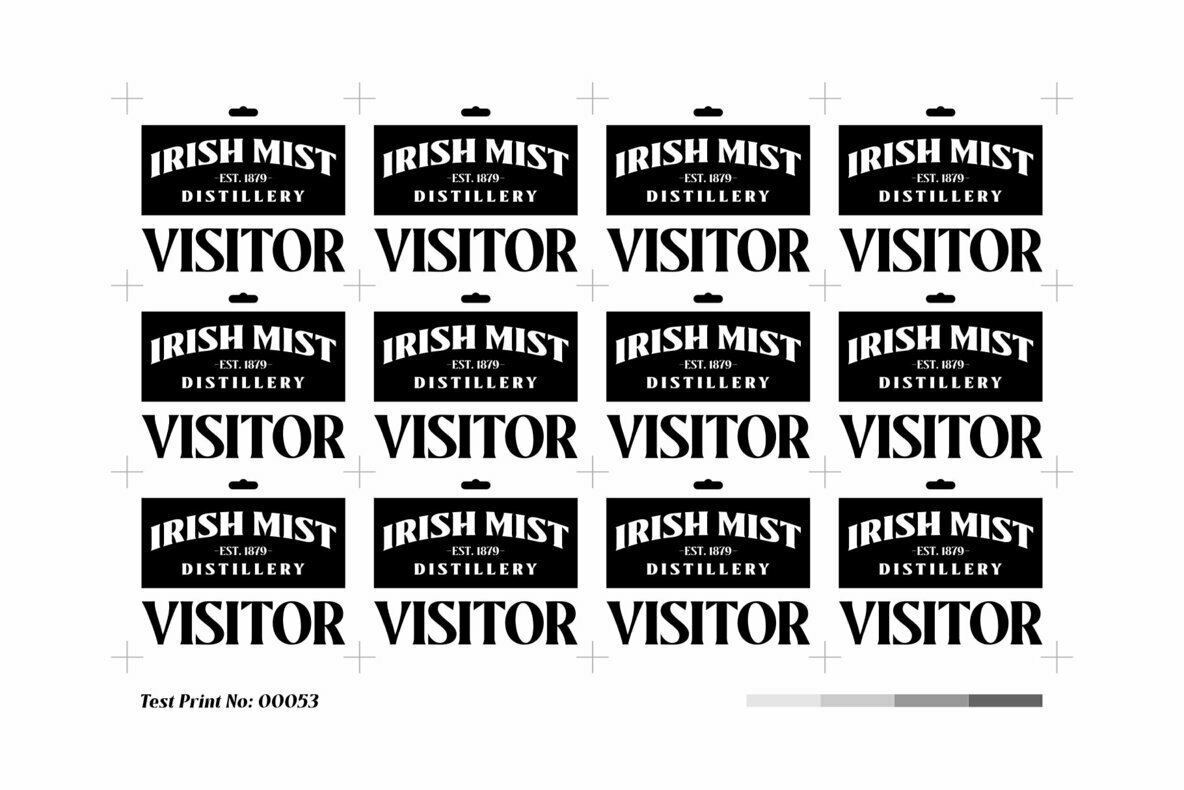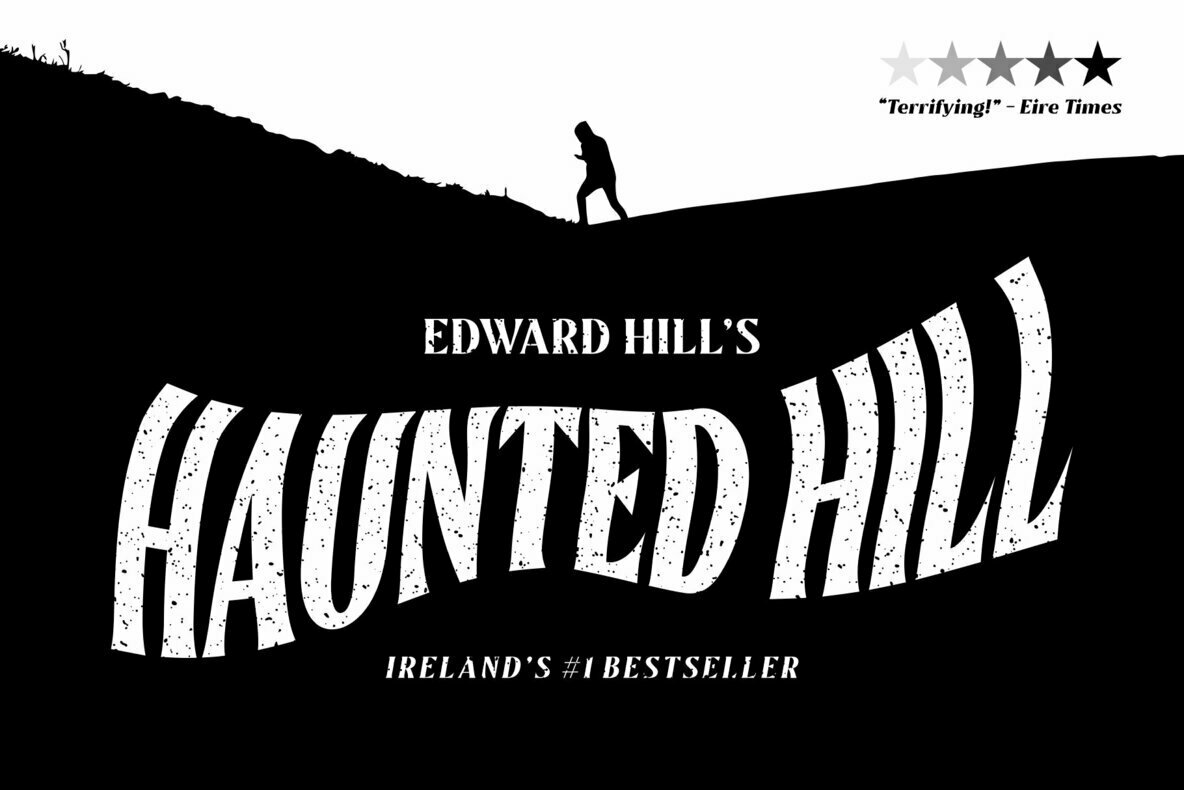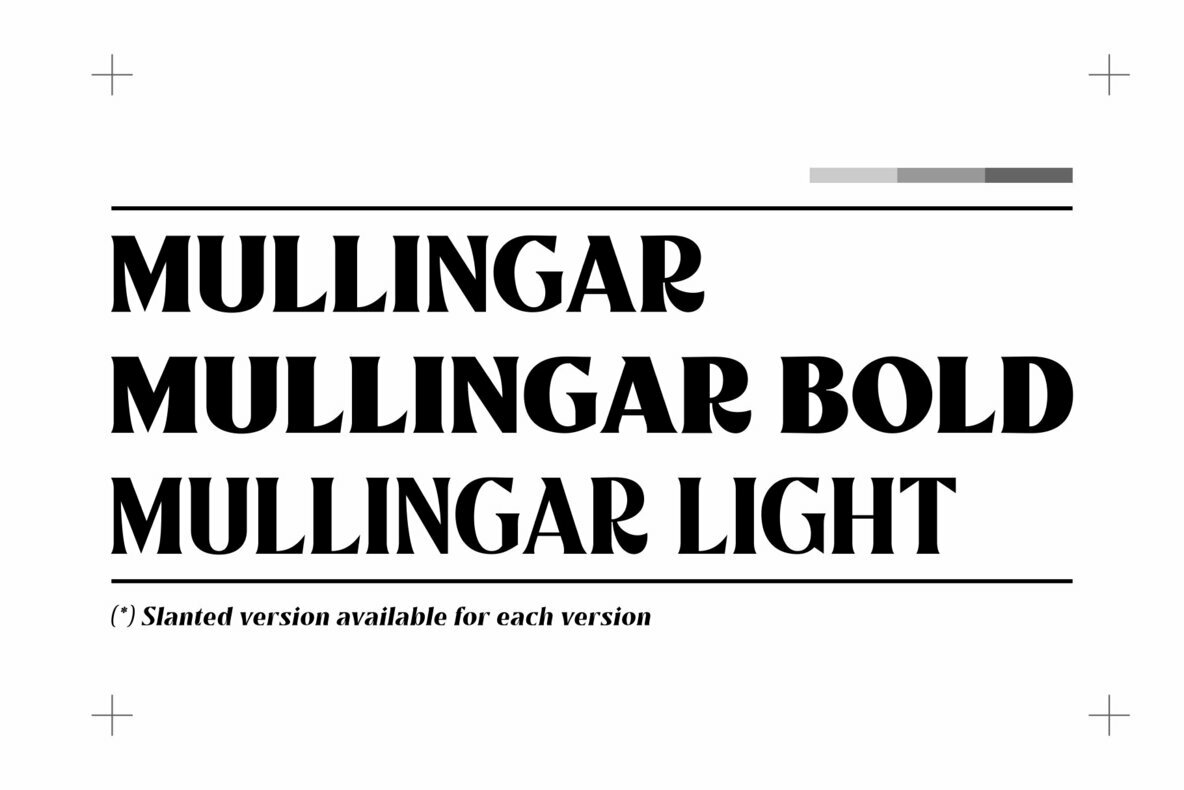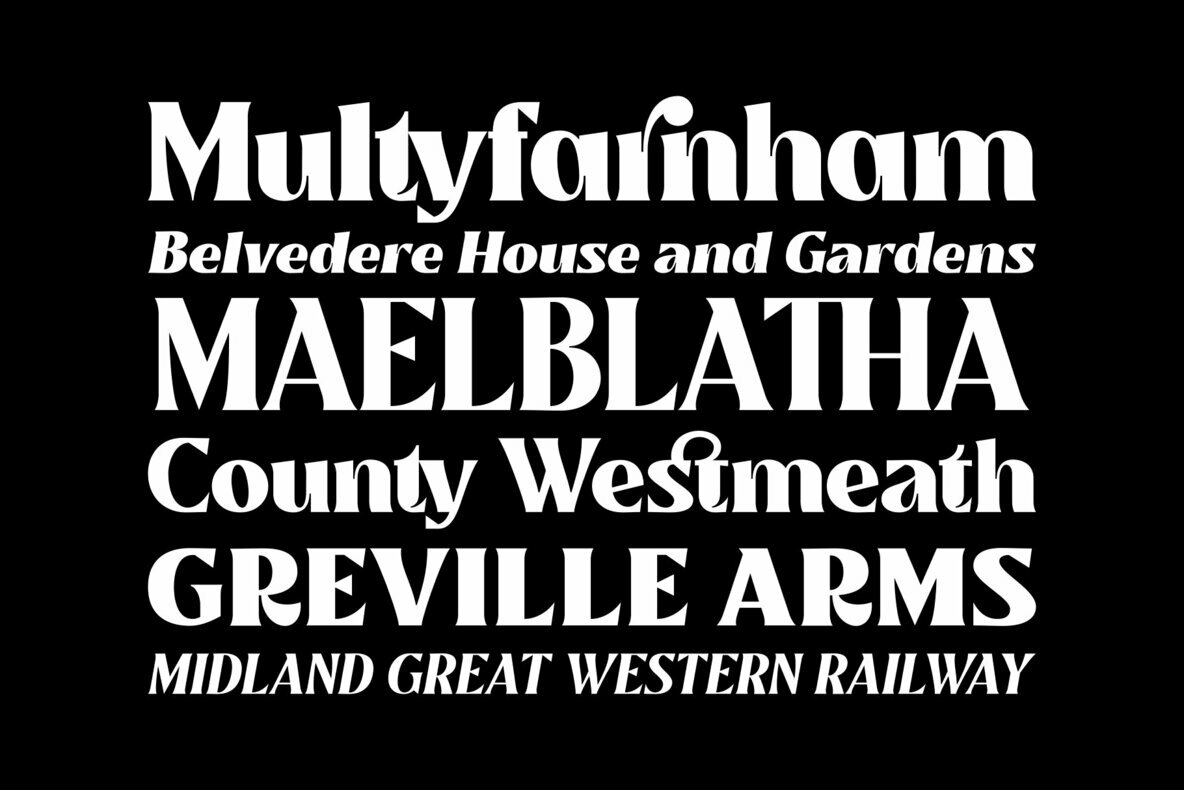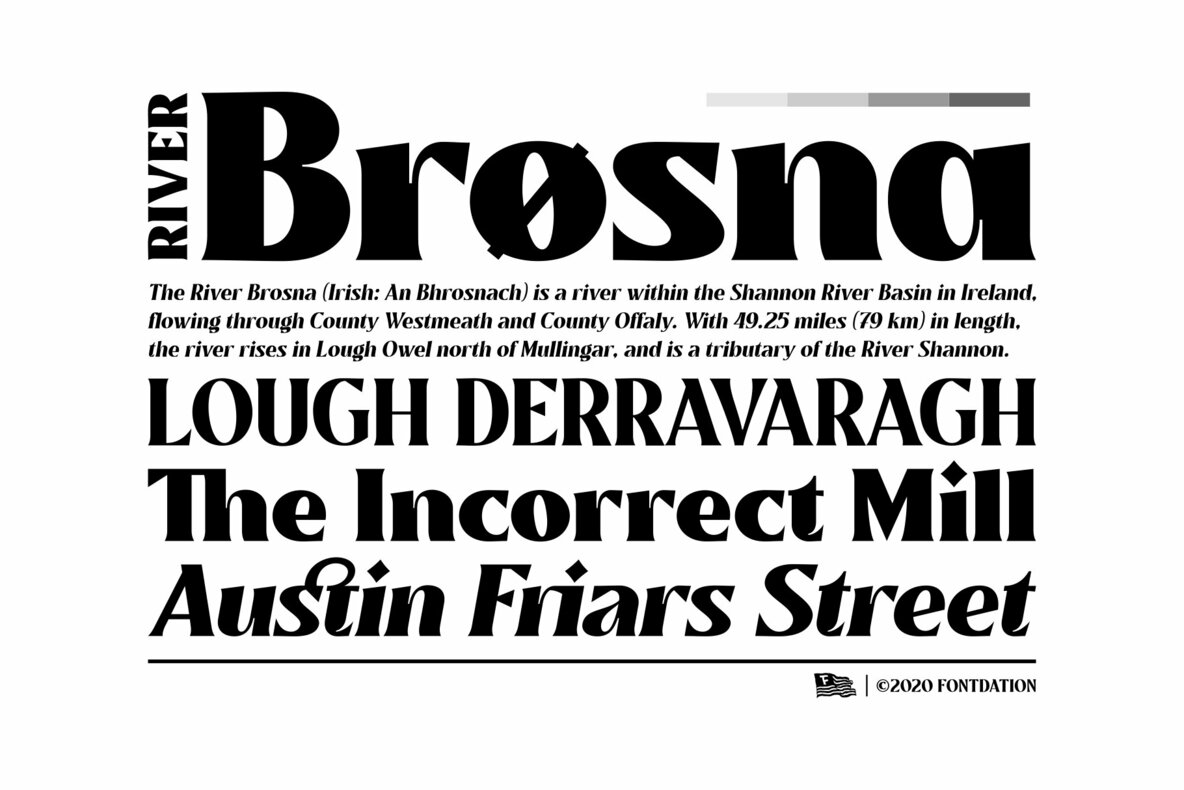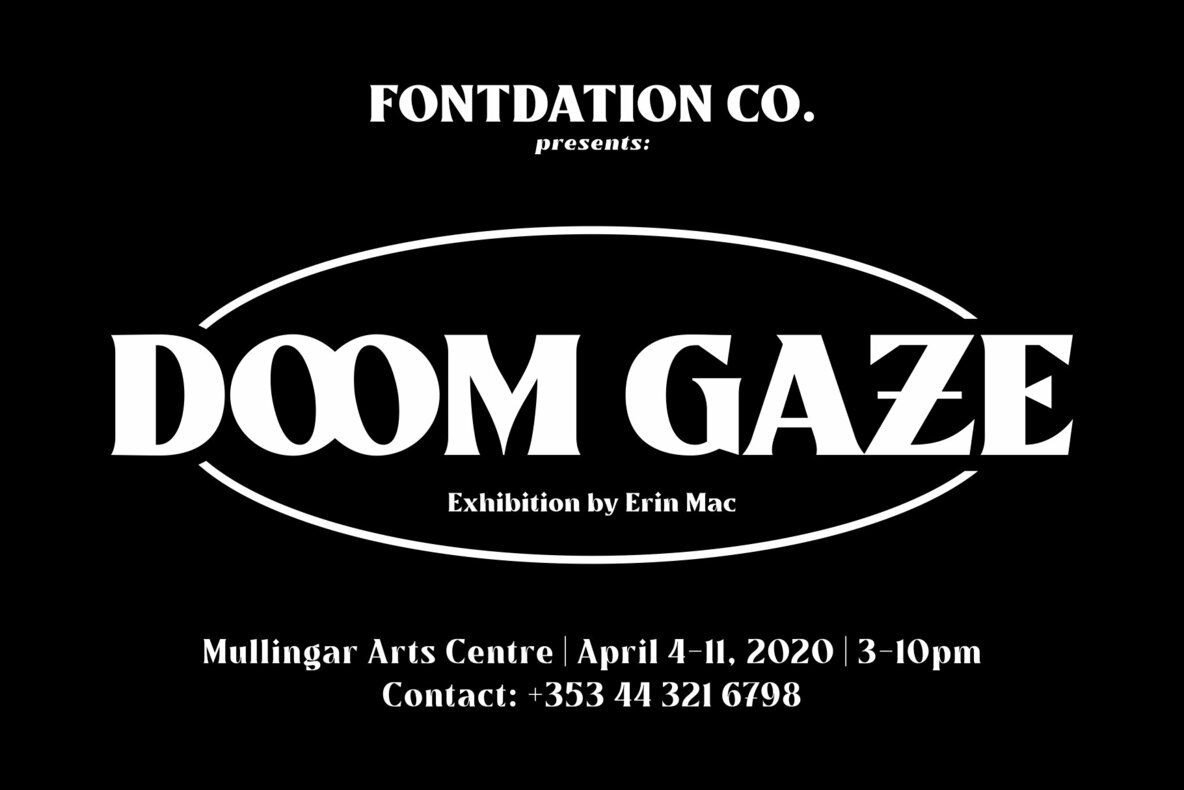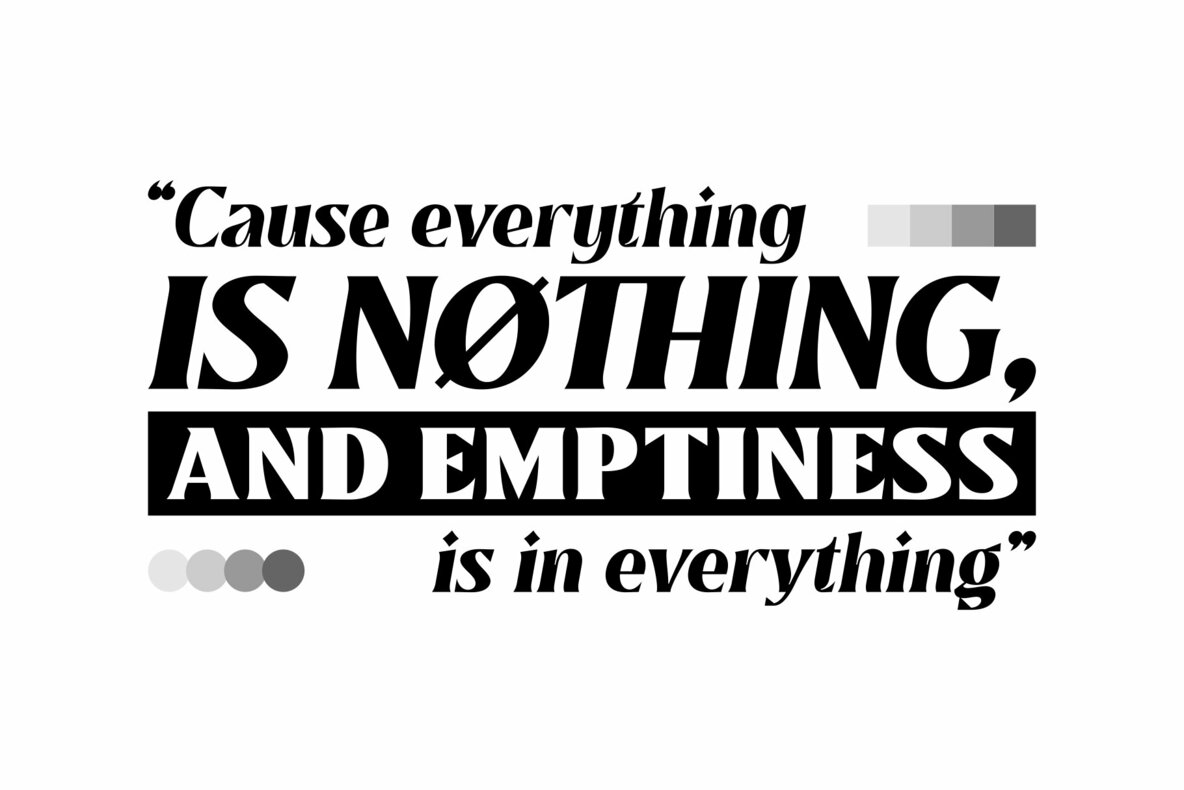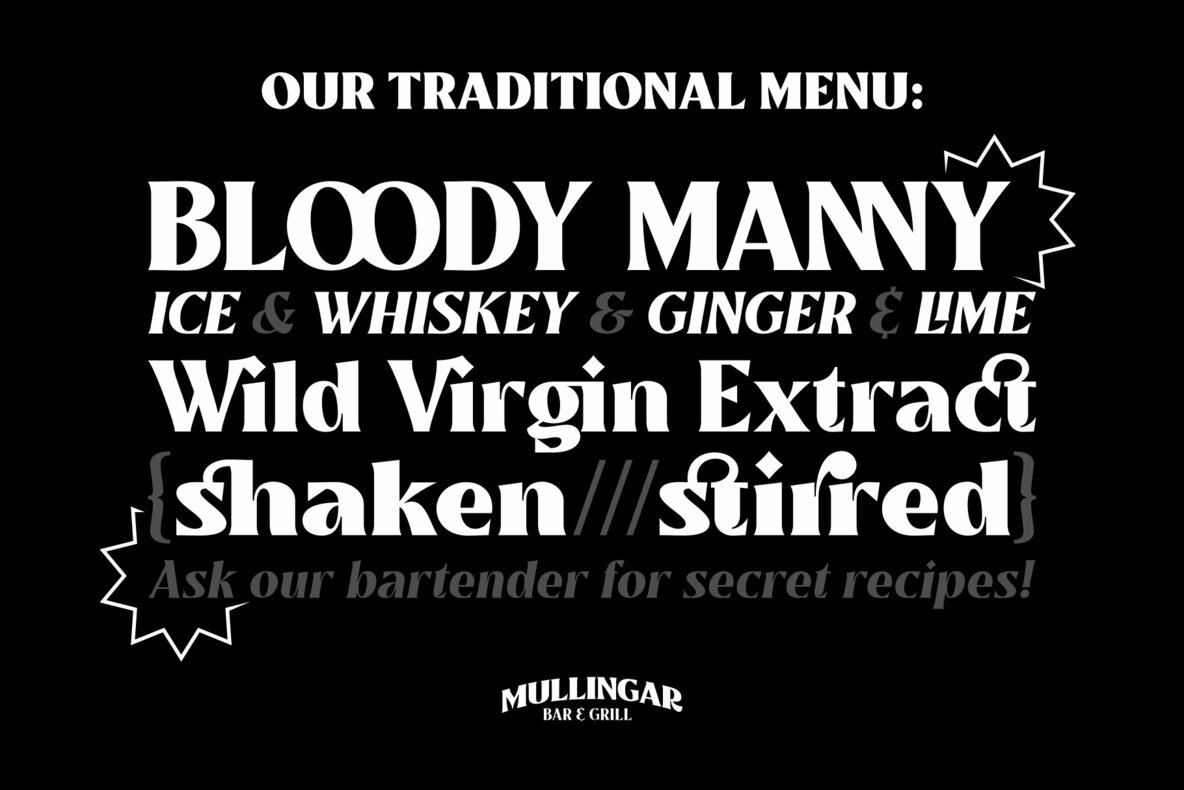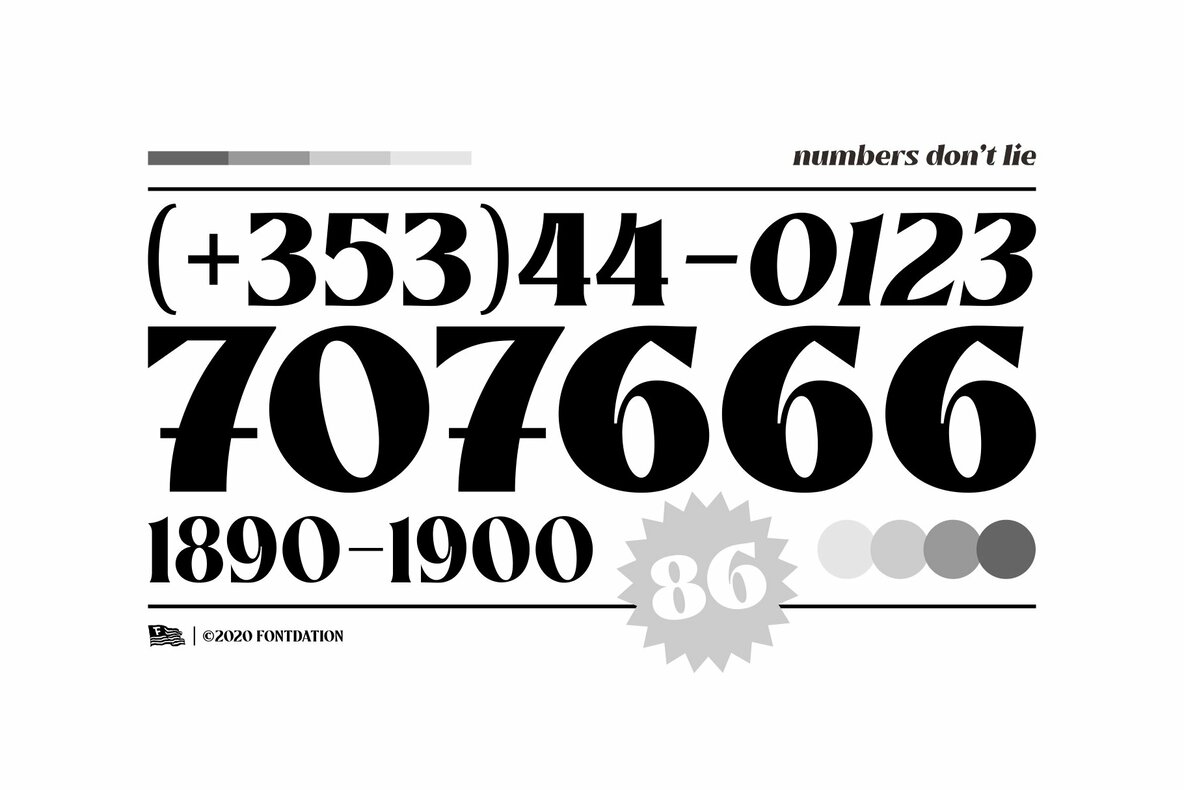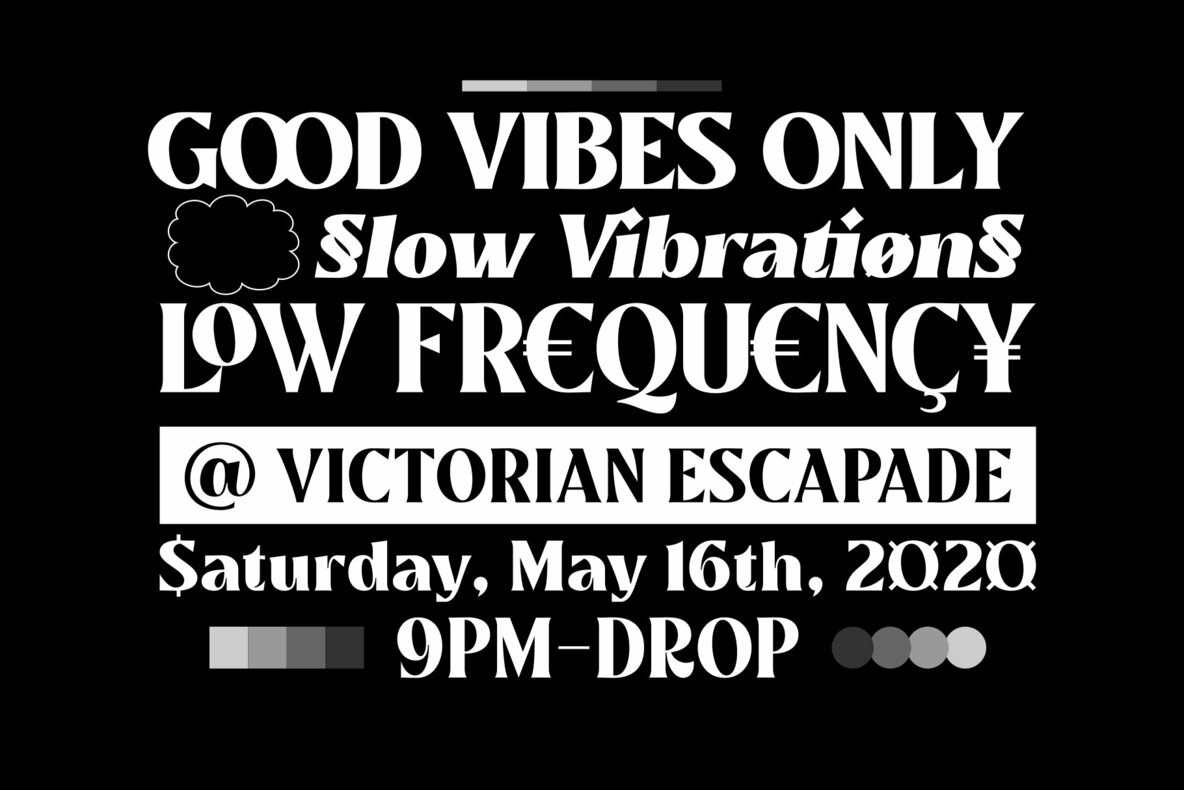
Mullingar Font
Mullingar, our latest submission to the display typeface's world library. Heavily inspired by the letters that are used in old/classic advertisements and sign painting culture, with a little touch of modern style to keep this family relevant. Mullingar letterforms were built from bold and blocky base, unique serif combinations, clean plus smooth curves, and sharp edges. Available in six styles (Regular, Bold, Light, plus Slanted in each version), that guaranteed to give you joy in designing.
Mullingar family is reminiscent of retro sign painting, featuring a rustic architecture that makes it quite at home in a wide variety of design themes. Its blocky characters are best used in bold signage, headlines, advertising, logo designs, product packaging, merchandise, apparel, posters, album artwork, book covers, titling, etc. This typeface also provides additional versatility through OpenType feature, offering discretionary ligatures, standard ligatures, and stylistic alternates. It extends multilingual support to Basic Latin, Western European, Euro, and Pan African Latin languages for design projects intended for an international audience.